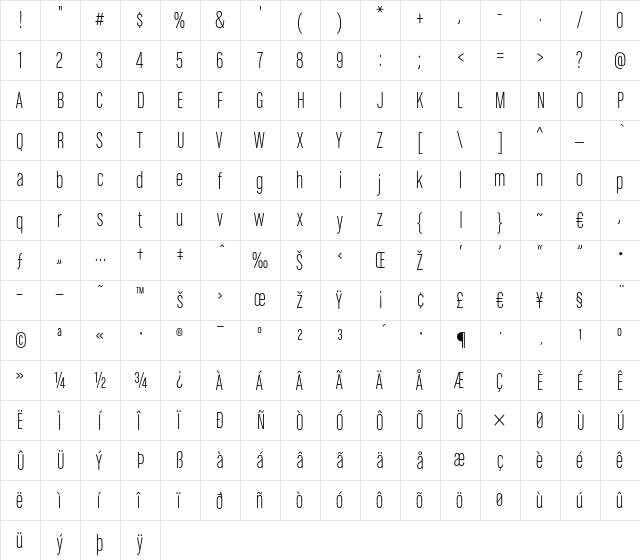
ChaletComprime-MilanSixty Regular
Design Context for ChaletComprime-MilanSixty Typeface
ChaletComprime-MilanSixty takes a measured approach to typography — its balanced proportions and neutral character make it a reliable workhorse for both digital and print work.
Pro Tip: Use ChaletComprime-MilanSixty in both headline and body roles to test its range before committing to a single application.